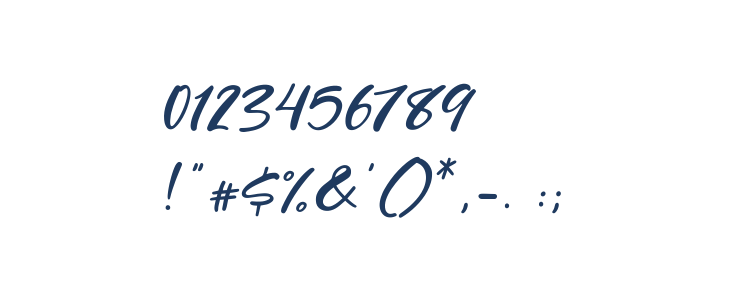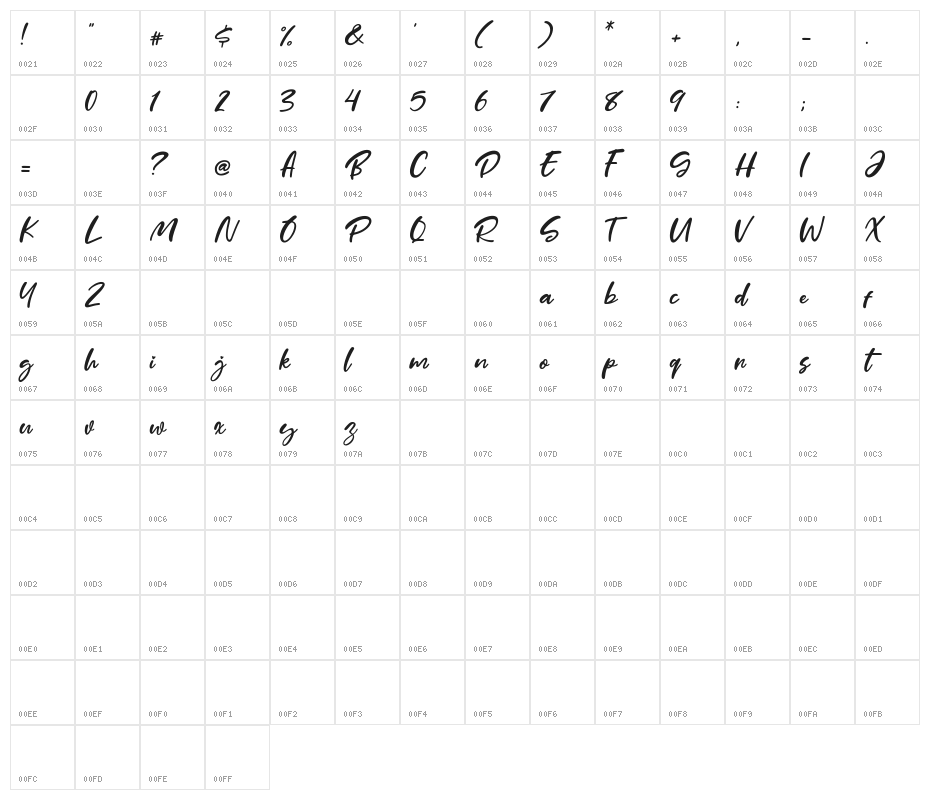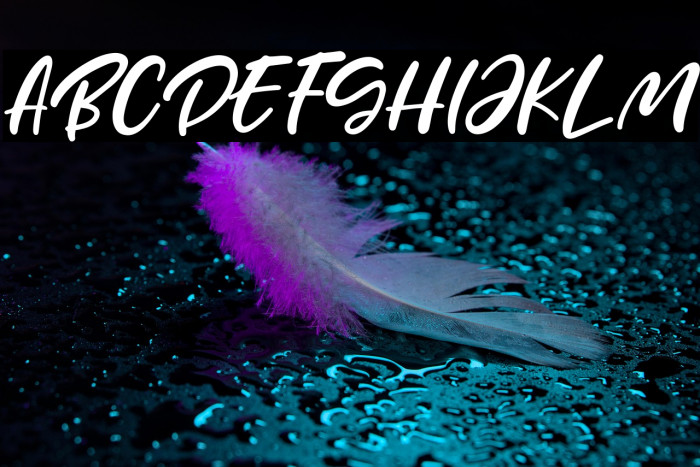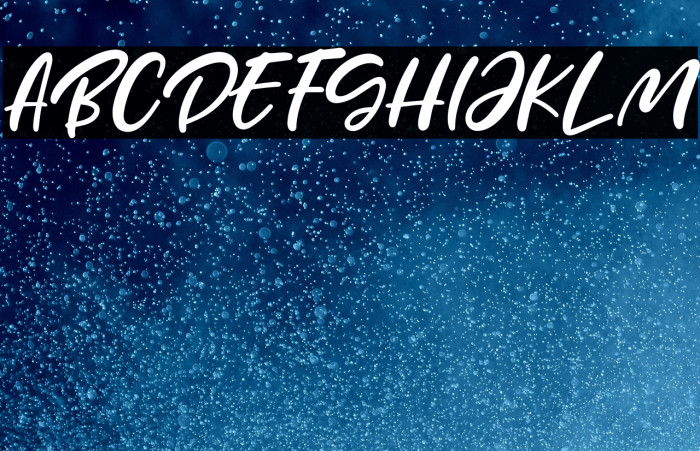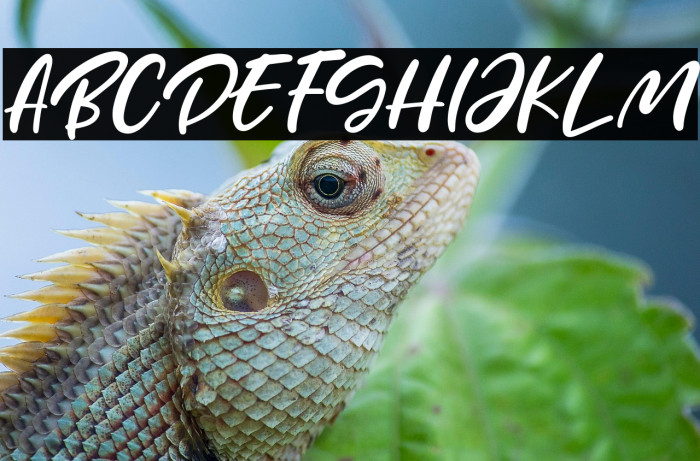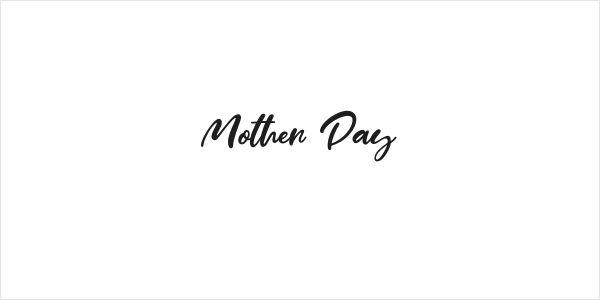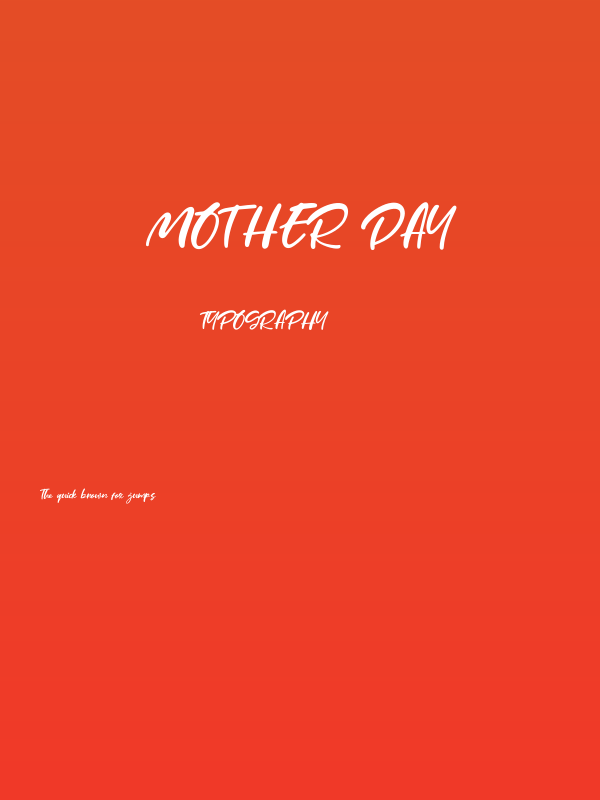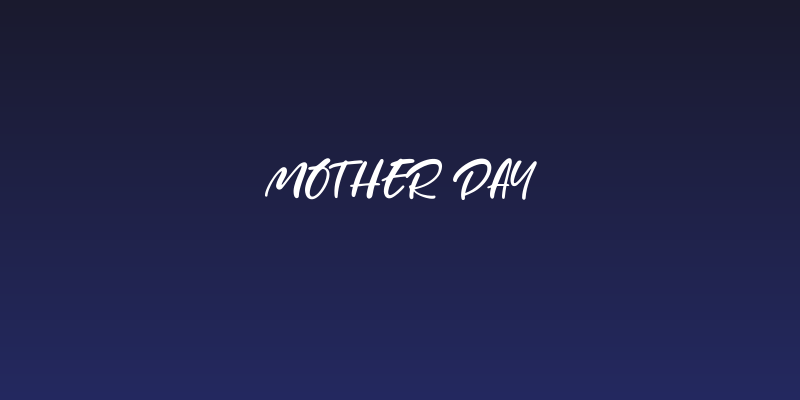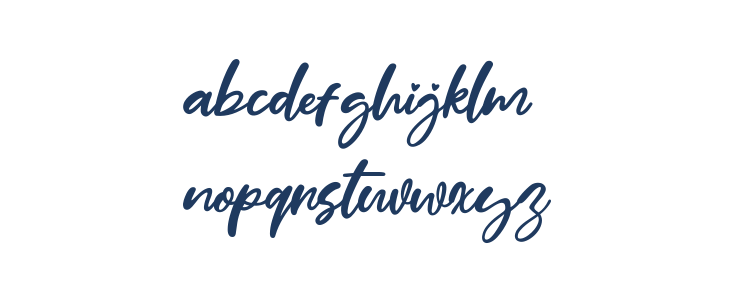
Mother Day Font
Mother Day Description
This font exudes a lively and expressive handwritten style, characterized by its fluid and dynamic strokes. The uppercase letters are bold and slightly slanted, giving a sense of movement and energy. The lowercase letters maintain a consistent flow, with some characters featuring unique loops and curls that add a playful touch. Numbers are well-integrated into the style, maintaining the same energetic flair. Special characters are creatively designed, fitting seamlessly with the overall aesthetic. The font's overall appearance is both stylish and approachable, making it suitable for a variety of creative applications.